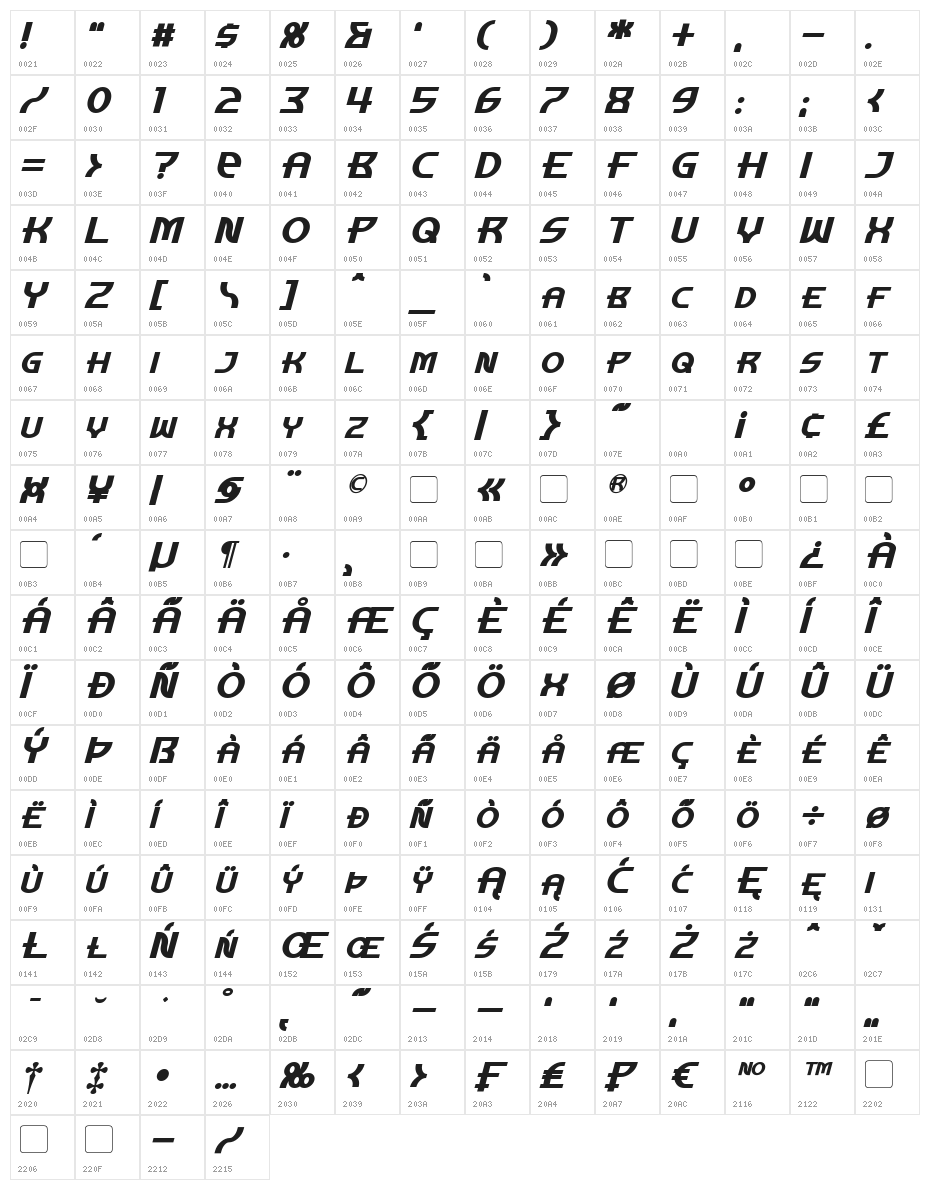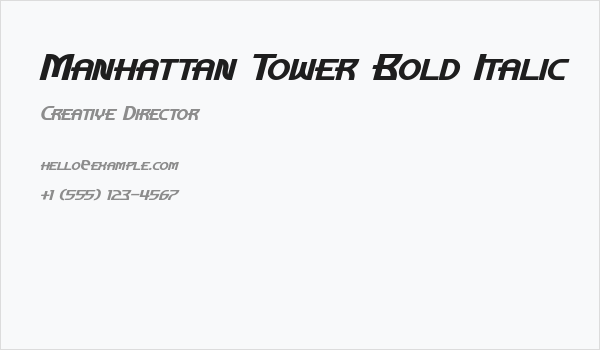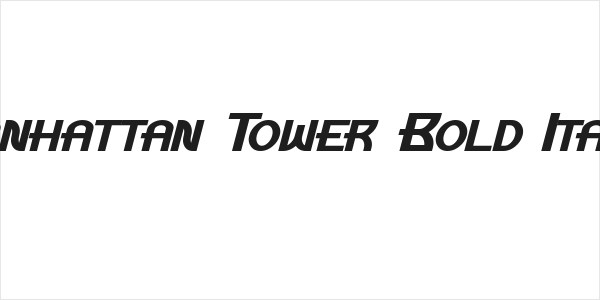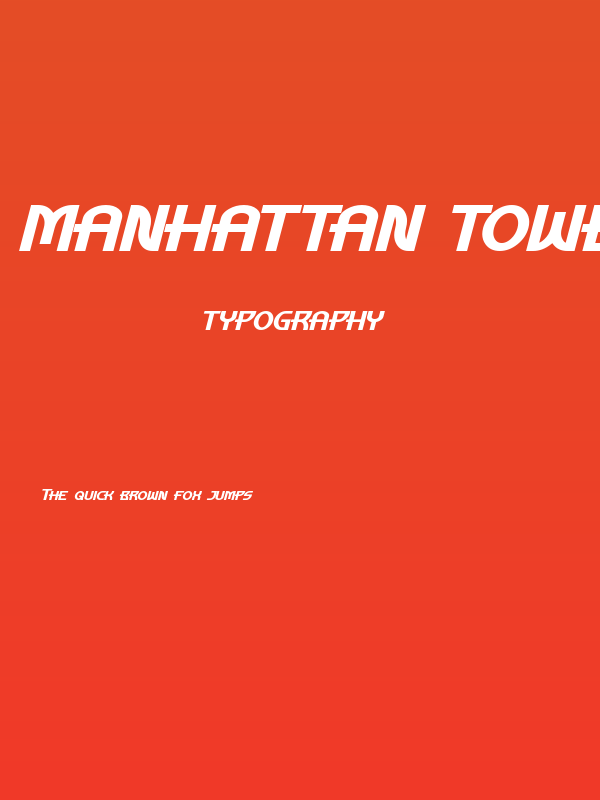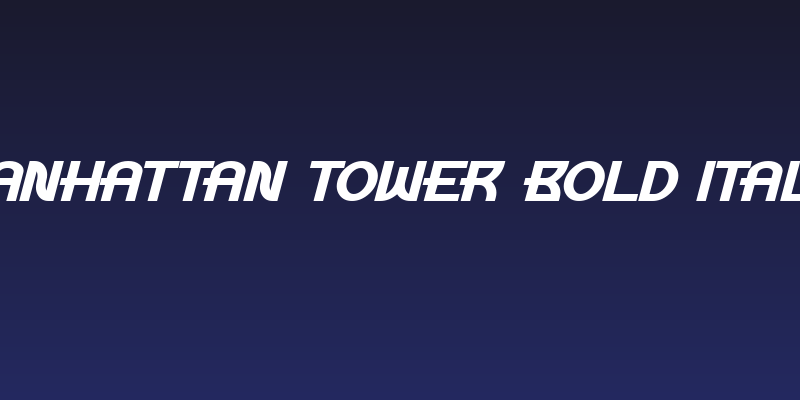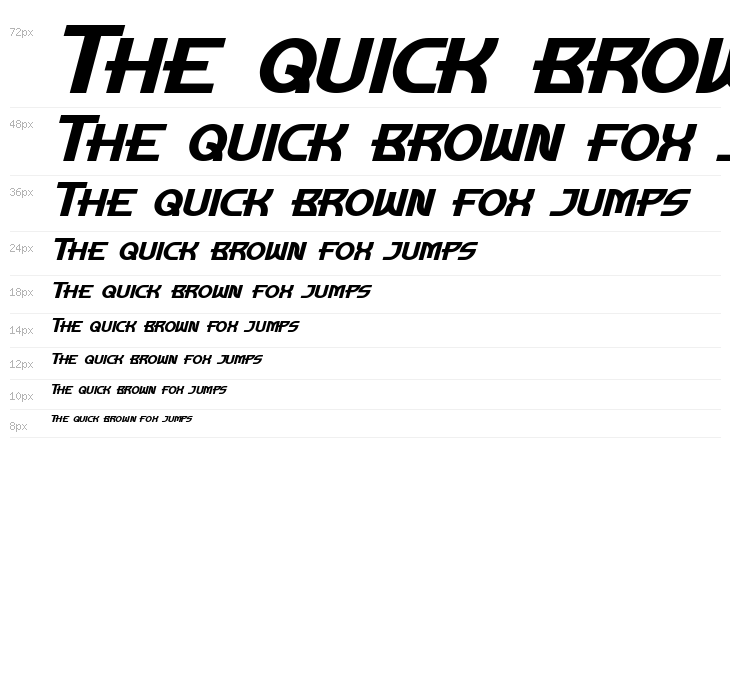
Manhattan Tower Bold Italic Font
Manhattan Tower Bold Italic Description
This font exhibits a bold and dynamic style with a strong italic slant, giving it a sense of motion and energy. The characters are wide and have a distinct geometric influence, with sharp angles and clean lines. The uppercase letters are particularly striking, with a futuristic and modern aesthetic. The numbers and special characters maintain the same boldness and angularity, ensuring consistency across all glyphs. This font is designed to capture attention and convey a sense of strength and modernity.
| Proposed Projects | Ideal for branding, advertising, posters, and any project requiring a bold, modern look. |